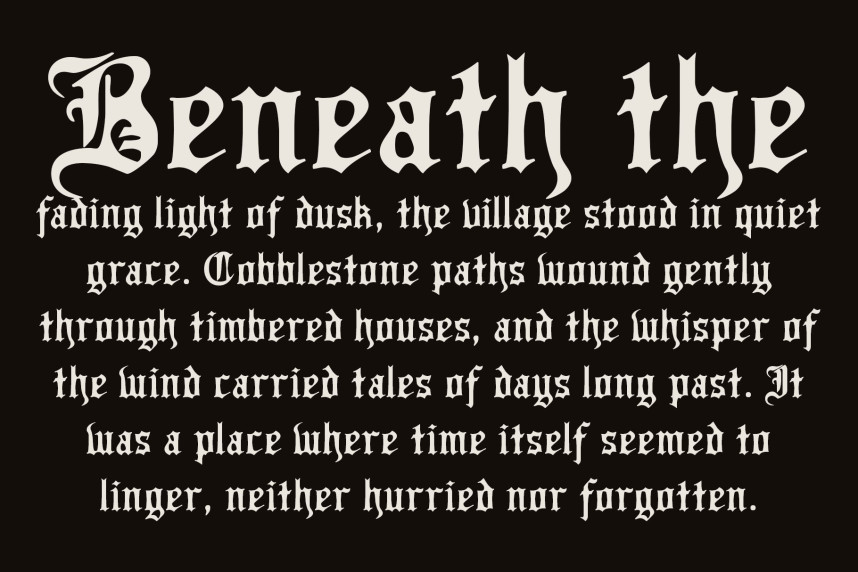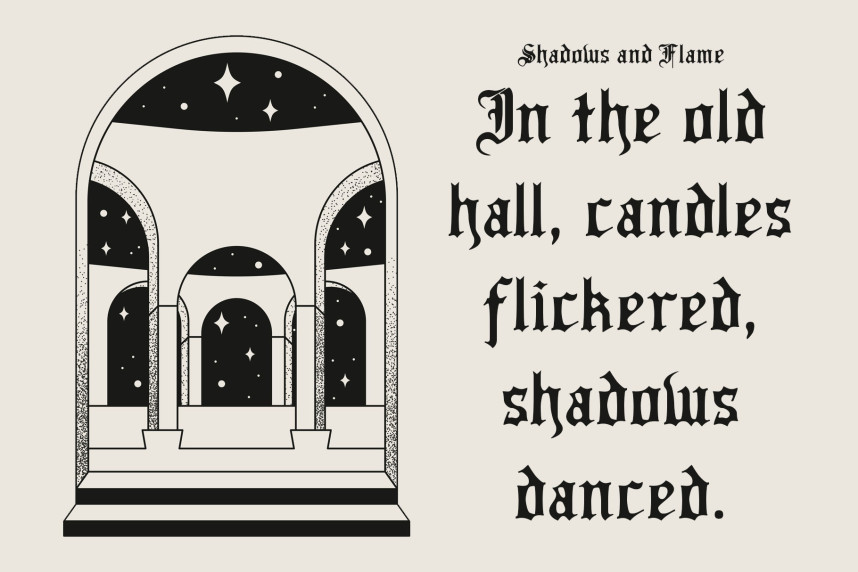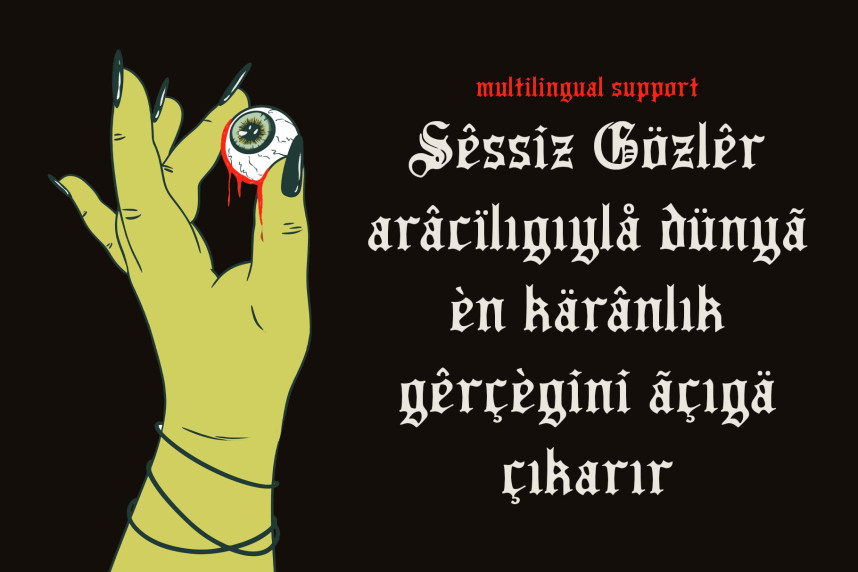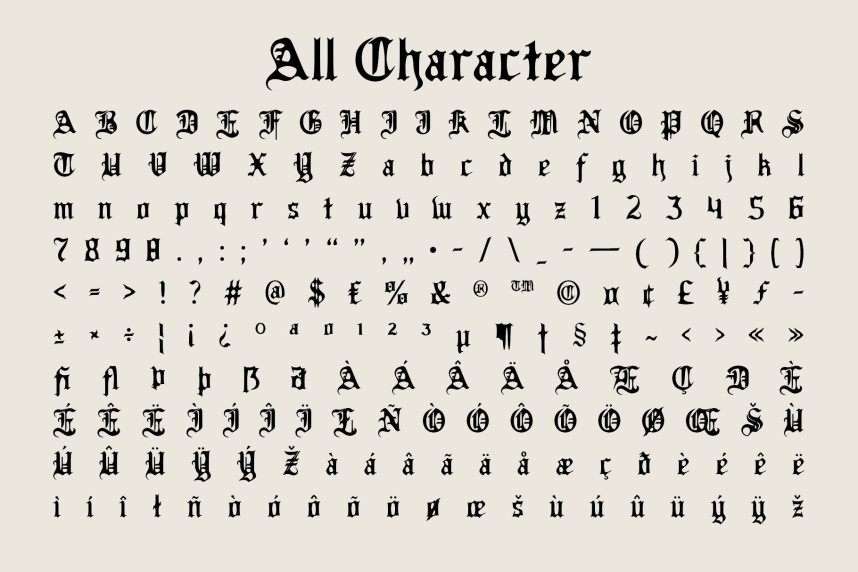
CS Rubeus Drawn Font
CS Rubeus Drawn Font – this is a dramatic Old English display font that blends medieval ornamentation with historical depth. Its intricate letterforms recall centuries-old manuscripts, while the drawn texture introduces a handmade aesthetic that feels raw, expressive, and unique. This fusion of history and artistry makes it a commanding choice for impactful designs.
Every curve and edge of radiates drama and intensity. The font’s ornamental strokes evoke gothic mystery, creating a visual language that feels bold and powerful. Its expressive qualities make it ideal for projects that need to capture attention with both heritage and edge. The drawn texture transforms a traditional Old English typeface into something more personal and crafted. Each letter carries an artisanal quality, softening the rigid historical forms and enhancing their emotional impact. This handmade detail ensures your design stands apart with authenticity.